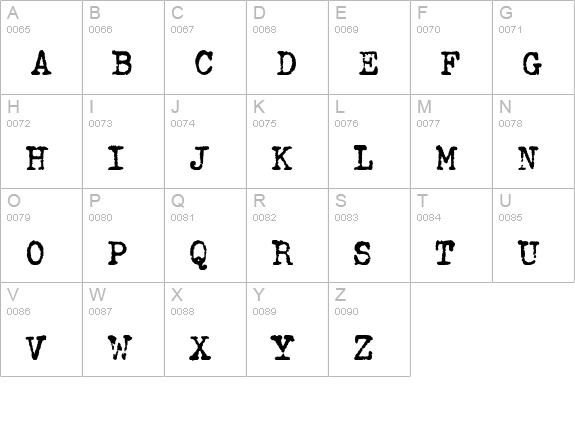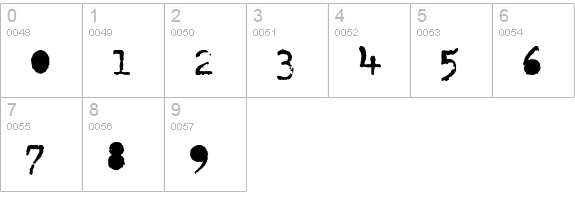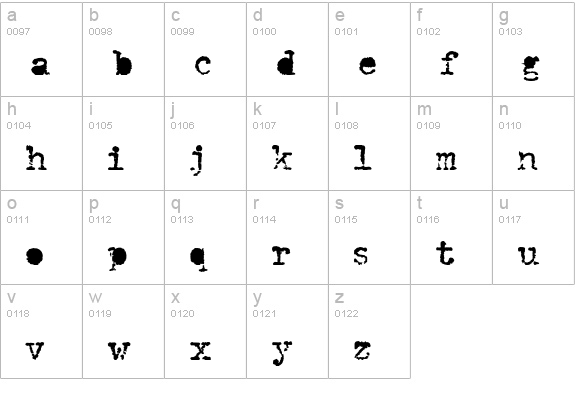
DumbOldTypewriter AlternateBold is a unique and eye-catching font that brings a vintage typewriter style to your designs with a bold and modern twist. This font exudes character and personality, making it perfect for adding a touch of nostalgia to your projects. The distinctive alternates and bold letterforms of DumbOldTypewriter AlternateBold will make your text stand out and grab attention. Best of all, DumbOldTypewriter AlternateBold is available for free download at FontsMarket.com. This means you can easily add this stylish and versatile font to your collection without any cost. Whether you're working on a retro-themed project, a vintage-inspired design, or simply want to add a touch of old-school charm to your work, DumbOldTypewriter AlternateBold is the perfect choice. Download it now and start creating stunning designs with this one-of-a-kind font.